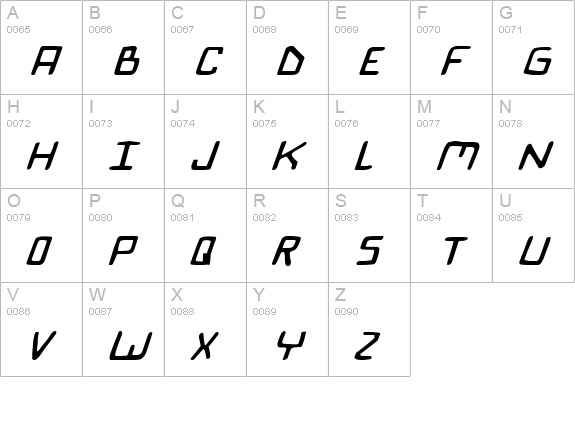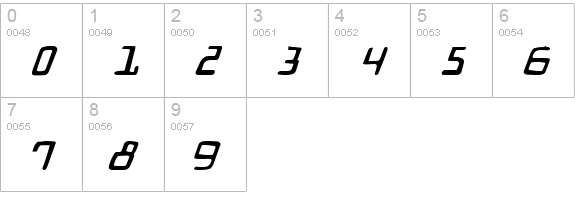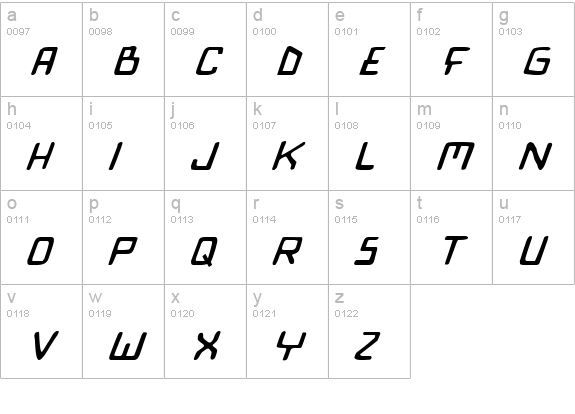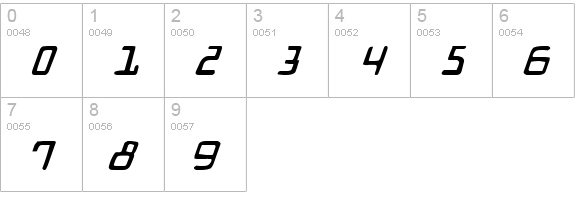
Bionic Comic Italic is a distinctive, italic variant in the Bionic typeface family \xE2\x80\x94 well suited to design and typography projects.
Discover the futuristic and dynamic appeal of Bionic Comic Italic font, a striking typeface that exudes energy and creativity. Its sleek design and unique italic styling make it perfect for projects that require a modern touch. With its bold strokes and sharp angles, Bionic Comic Italic font is sure to make a statement in any design. The best part? This captivating font is available for free download at FontsMarket.com, allowing you to unleash your creativity without any cost. Whether you're designing a poster, logo, or website, Bionic Comic Italic font is the perfect choice to add a touch of innovation and flair to your projects. Download it now and elevate your designs to a whole new level!